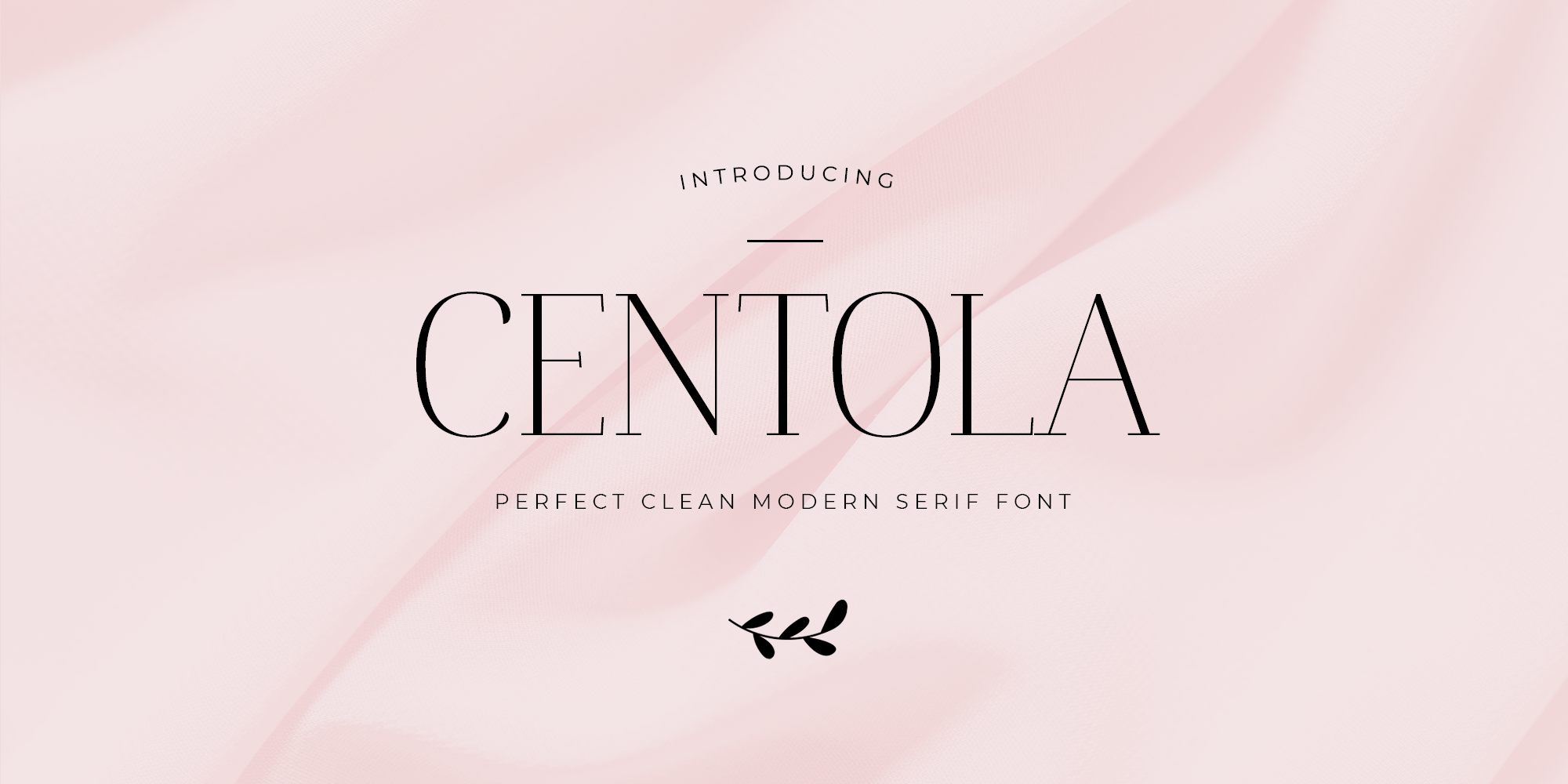
Centola Font is perfect for Mediterranean restaurant branding, Italian cultural projects, European heritage materials, coastal tourism promotions, traditional cooking publications, artisanal food packaging, cultural festival communications, and authentic regional lifestyle marketing.
This distinctive serif typeface is exciting because it captures the warm hospitality and rich cultural heritage of Mediterranean coastal regions through elegant letterforms that evoke the timeless traditions and sun-soaked beauty of Southern European communities.
The Centola Font family includes light, regular, medium, and bold weights with Mediterranean alternates, coastal decorative elements, and regional flourishes that enhance the authentic Southern European atmosphere of any cultural heritage design project.
Warm and culturally rich, Centola Font Free Download brings the authentic charm and Mediterranean heritage of Southern European coastal culture to contemporary typography through genuine regional character. This inviting font embodies the hospitality and cultural richness that defines Mediterranean communities, making it invaluable for establishments celebrating authentic European coastal traditions and regional cuisine. Its elegant character reflects the generations of history and cultural exchange that shaped Mediterranean civilizations, resonating with audiences who appreciate genuine cultural heritage over commercialized European stereotypes. Perfect for Italian restaurants and Mediterranean tourism, this font ensures your message carries the regional authenticity and cultural dignity that Mediterranean traditions deserve. Whether used for coastal resort promotions or traditional recipe collections, Centola Font Free Download delivers the Mediterranean credibility and warm hospitality that connects with people seeking authentic European cultural experiences and the timeless appeal of Mediterranean lifestyle that celebrates family, food, and the simple pleasures of coastal living.